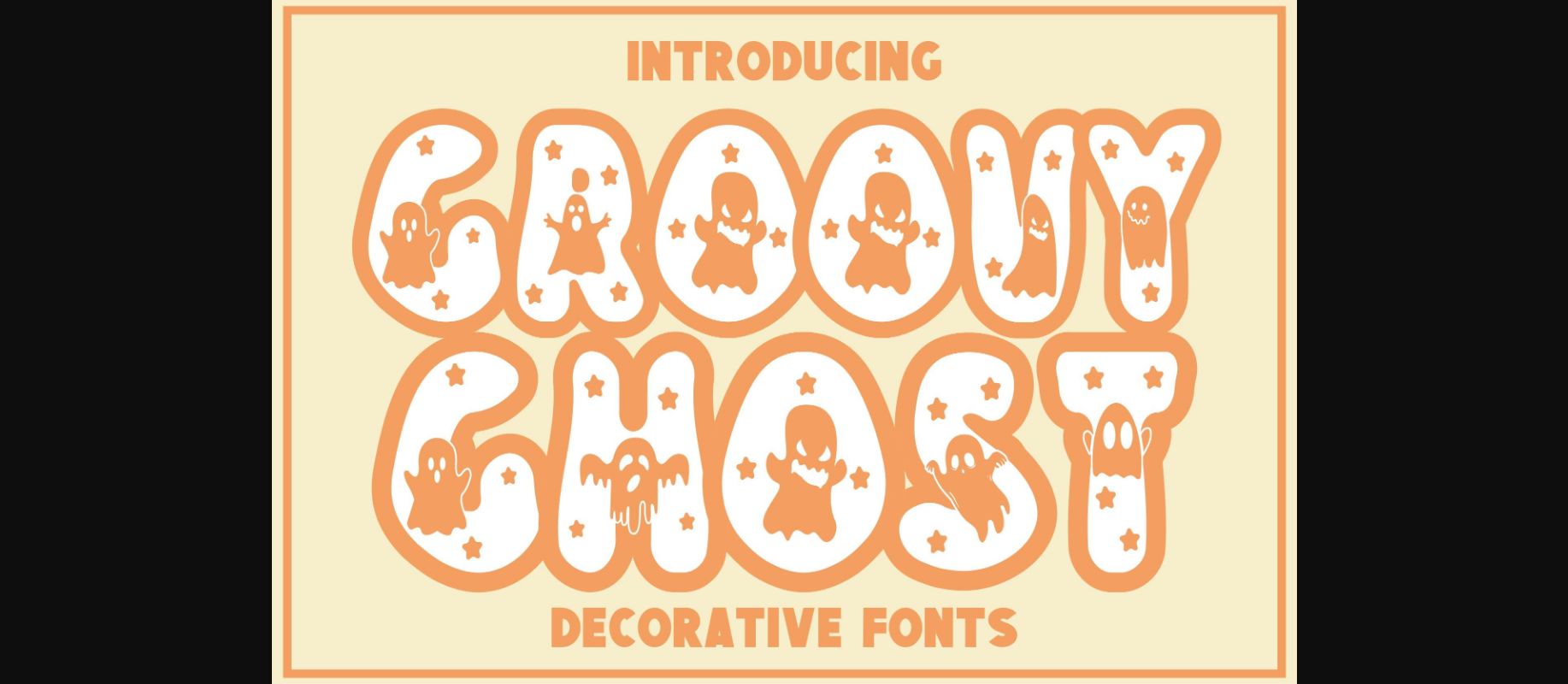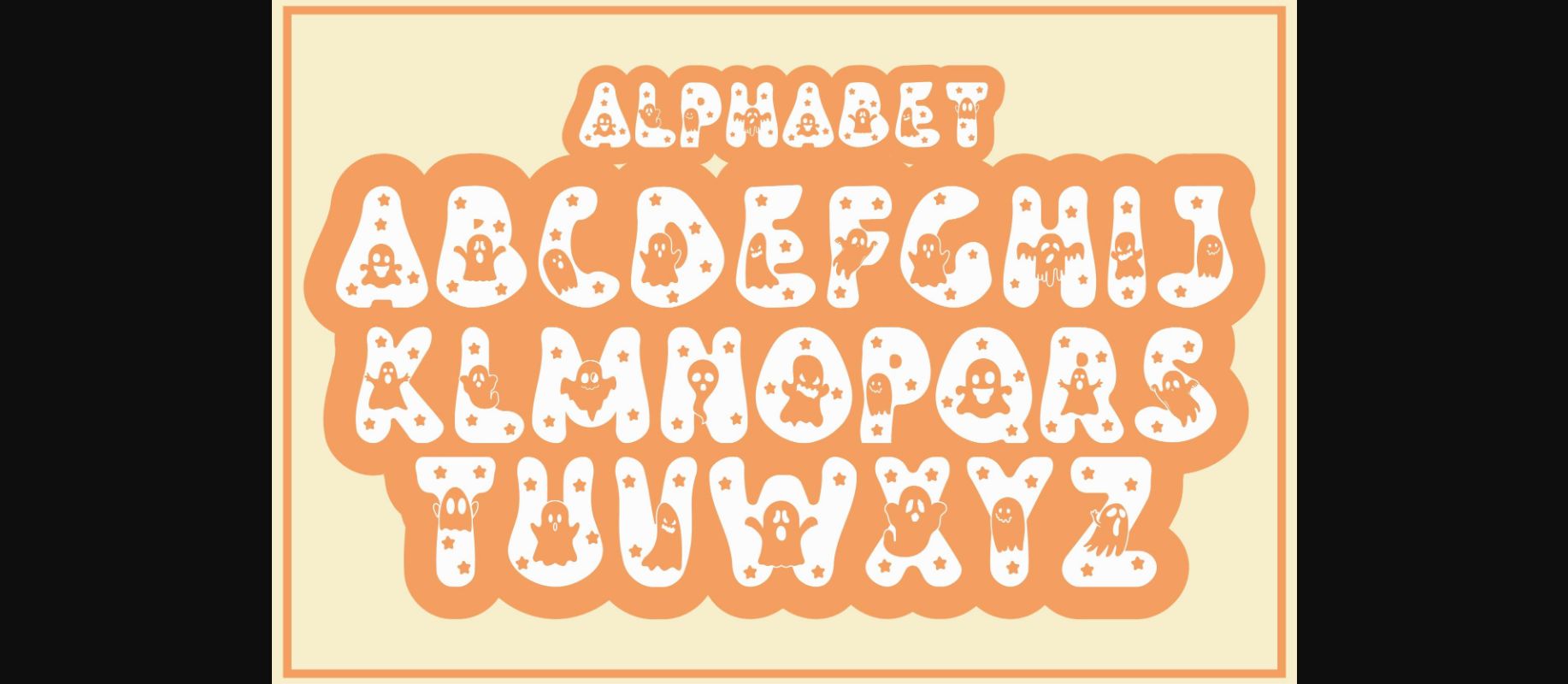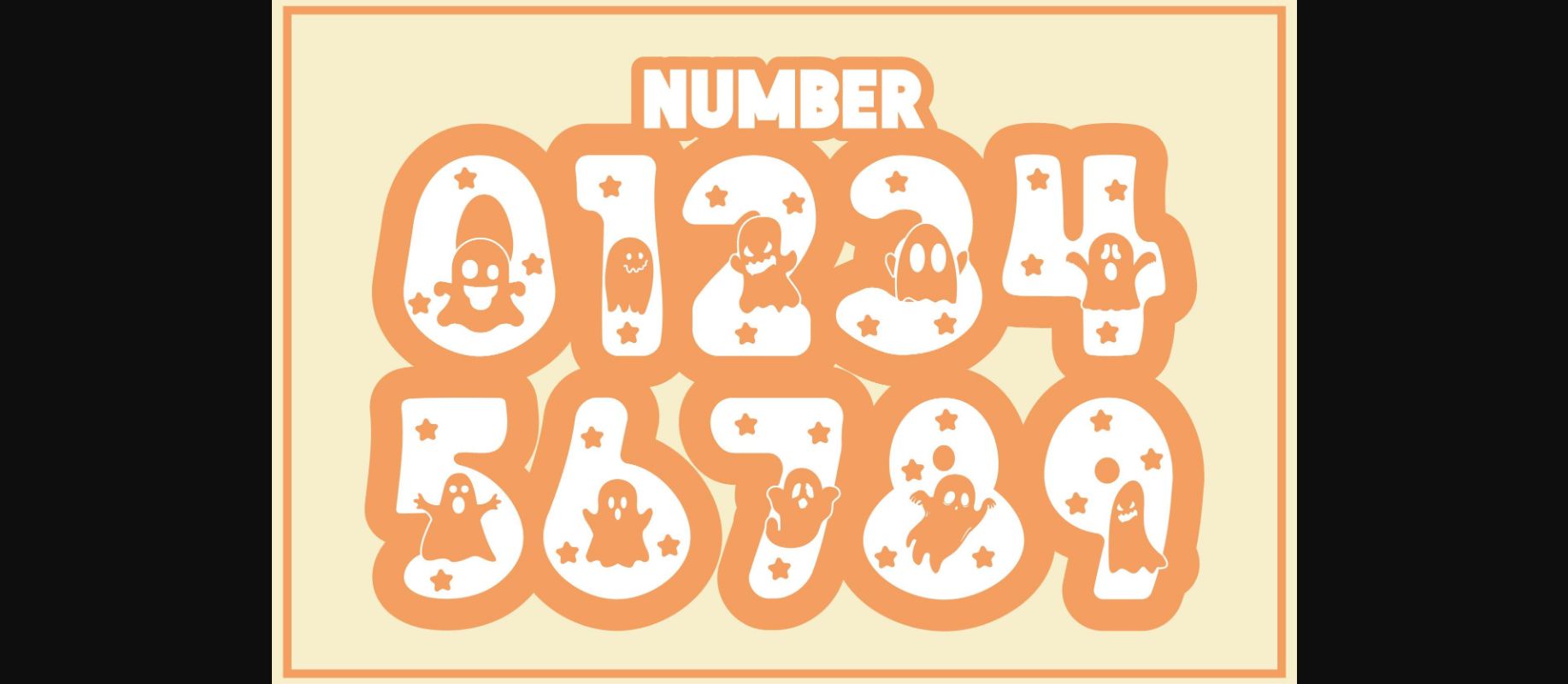
Groovy Ghost is a fun and spooky decorative font. Whimsical and a little mysterious, this font will look amazing on all your Halloween projects and is guaranteed to make an impact.